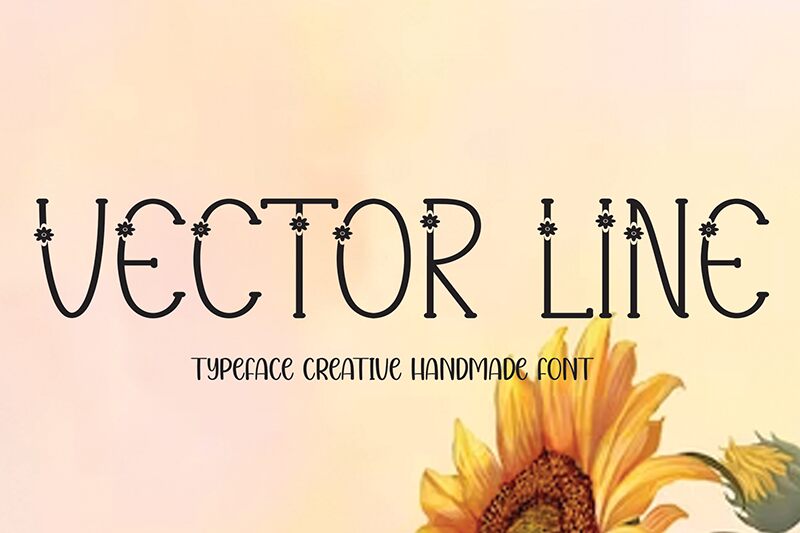
Vector Line
Vector Line font by Andi Moz is a retro-inspired, decorative display font with strong geometric influences. Blending art deco vibes with an ornamental flair, this light and condensed typeface presents a captivating visual complexity that truly stands out. Every letter parallels the next one in its basic structure as well as its whimsical external details and slightly thicker end parts.